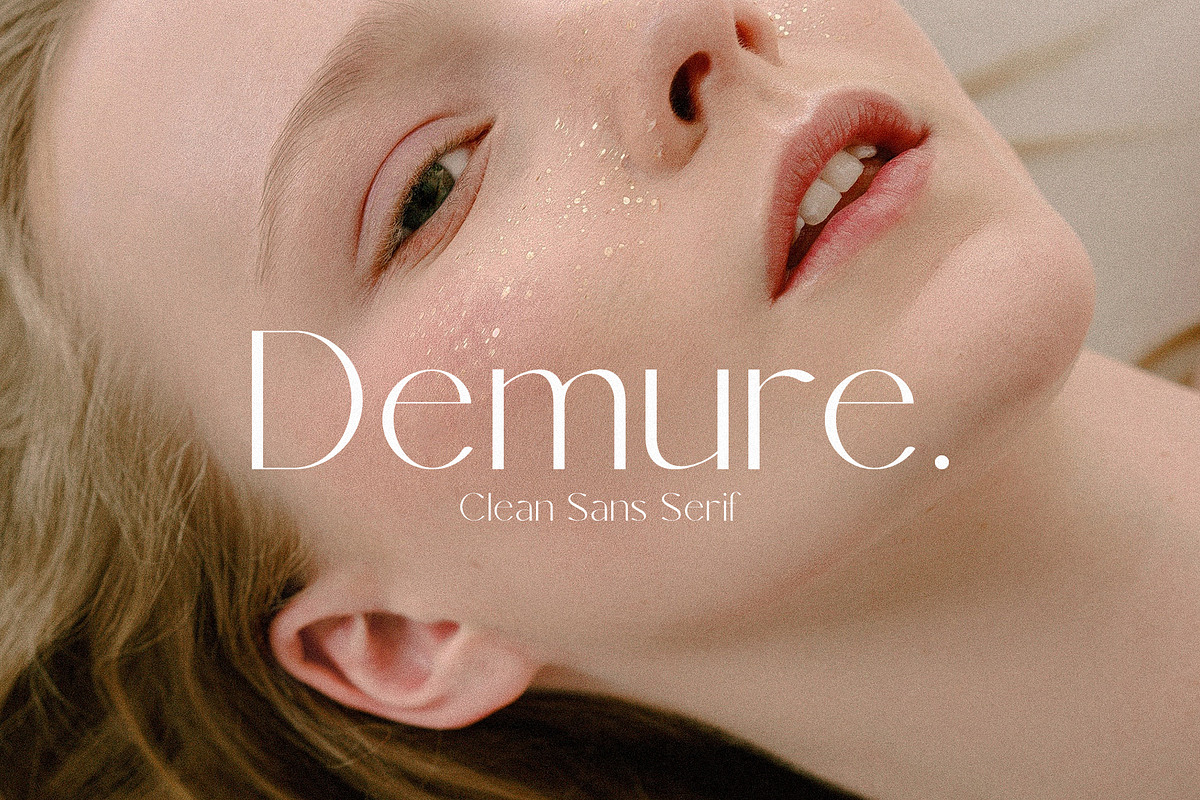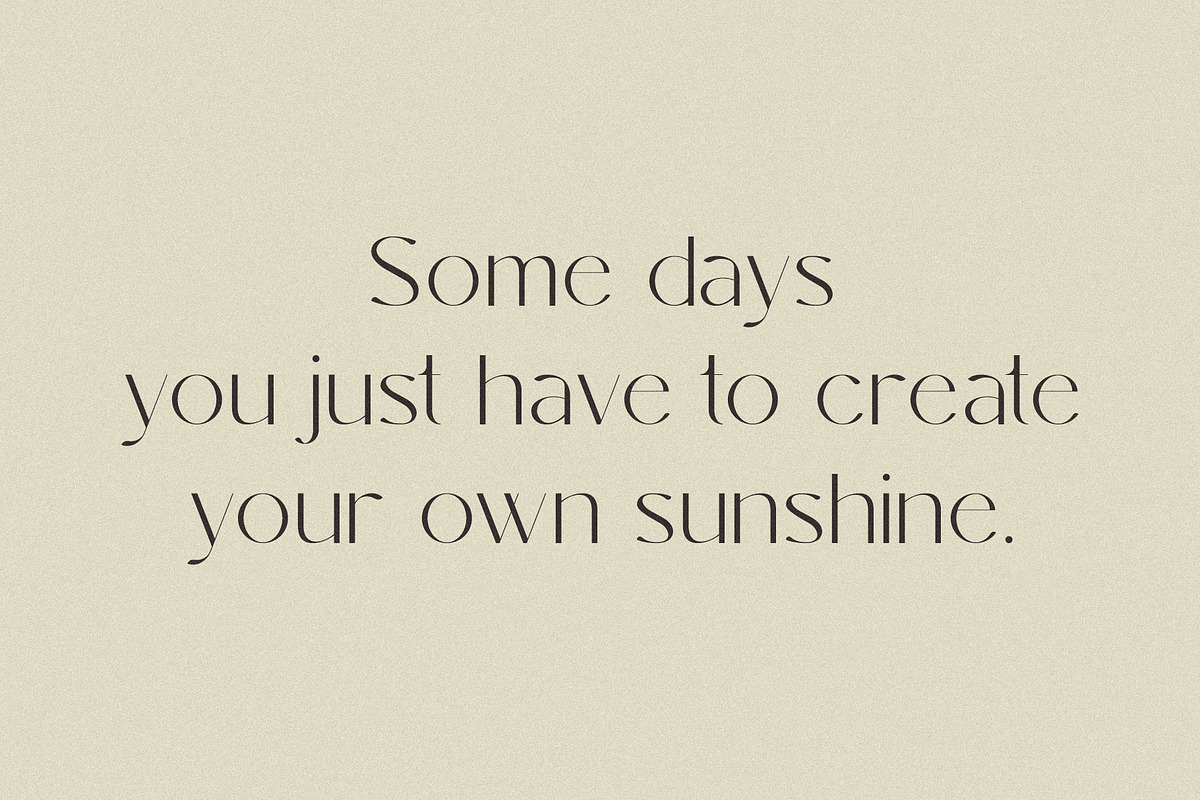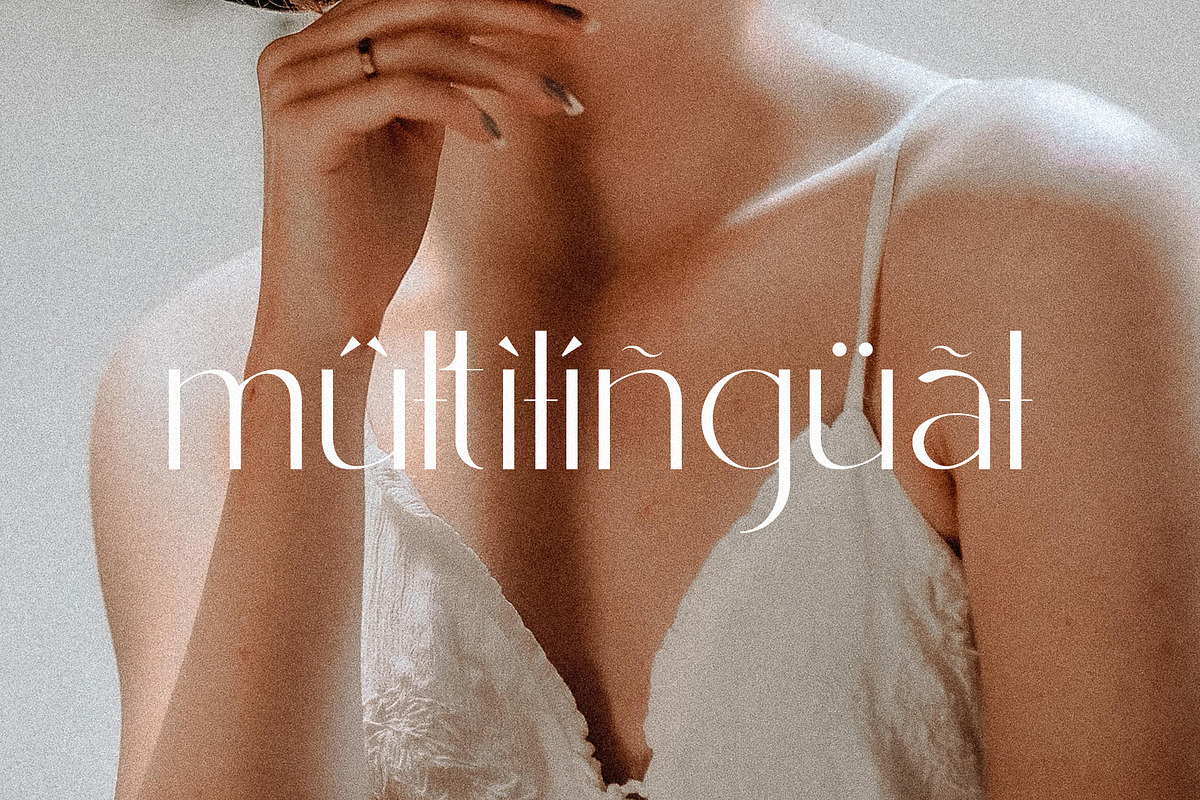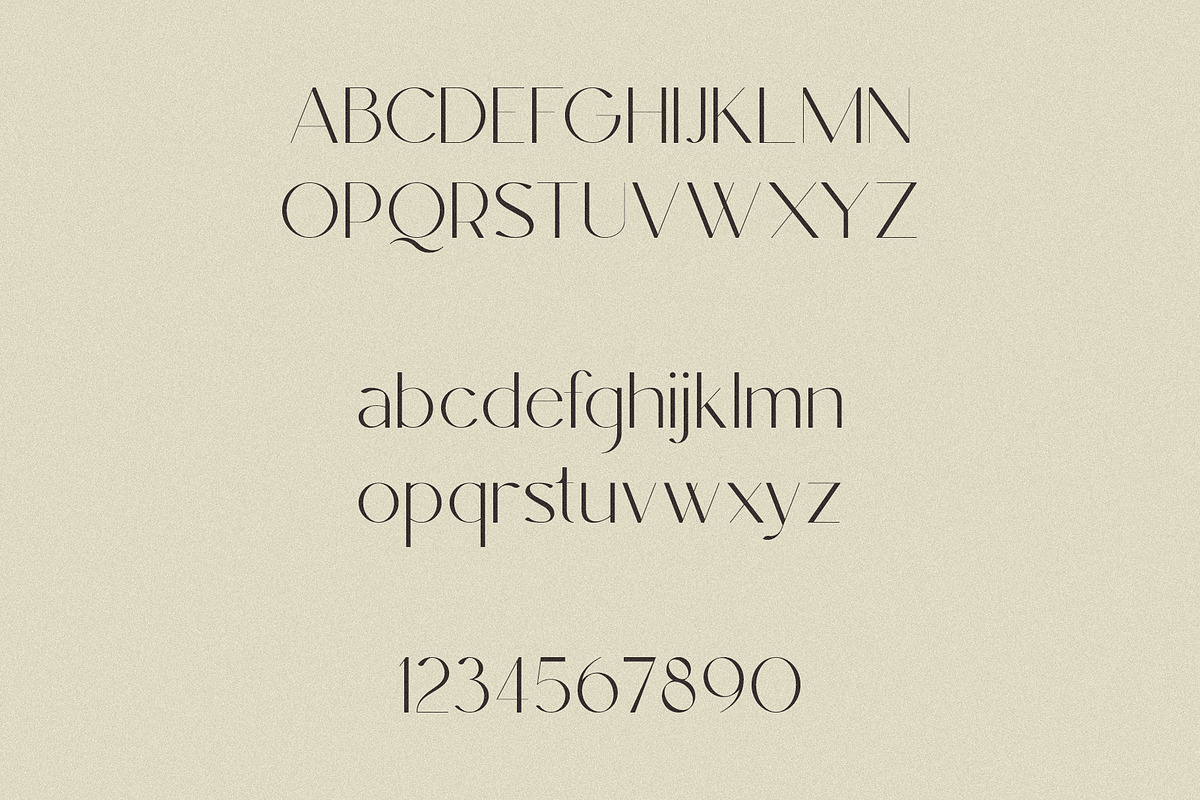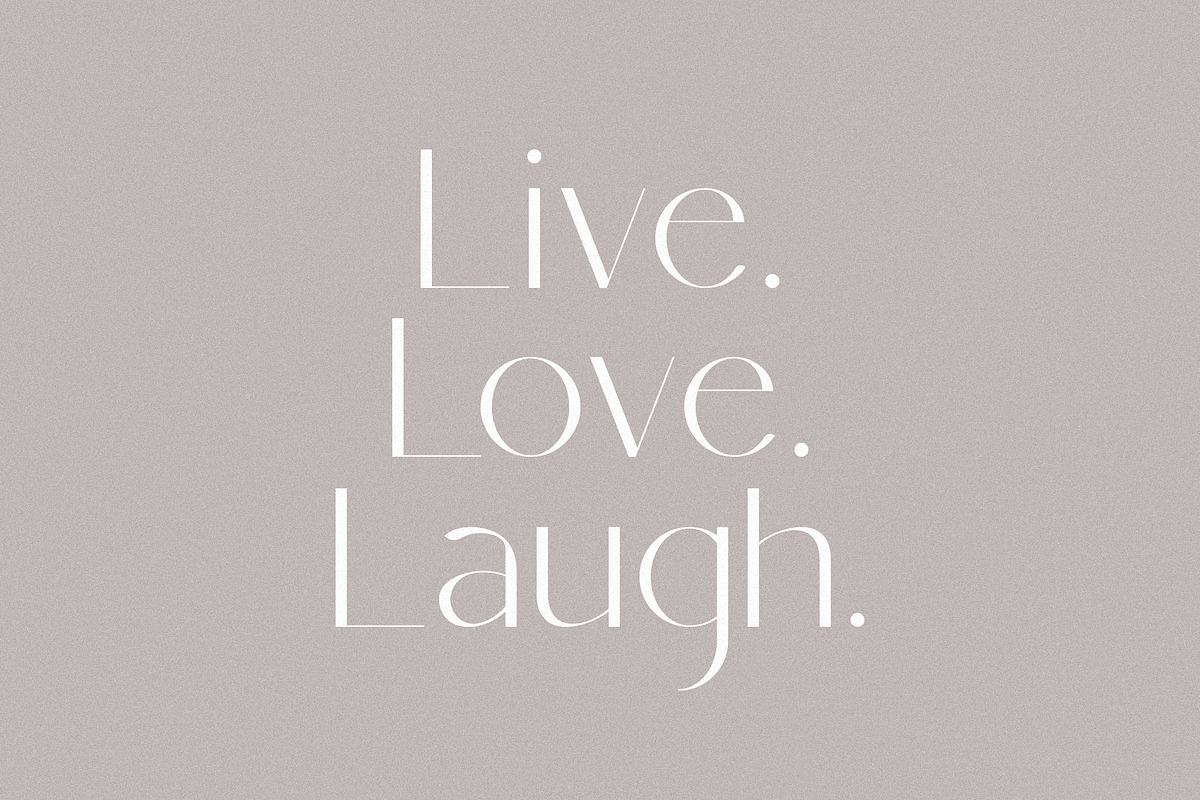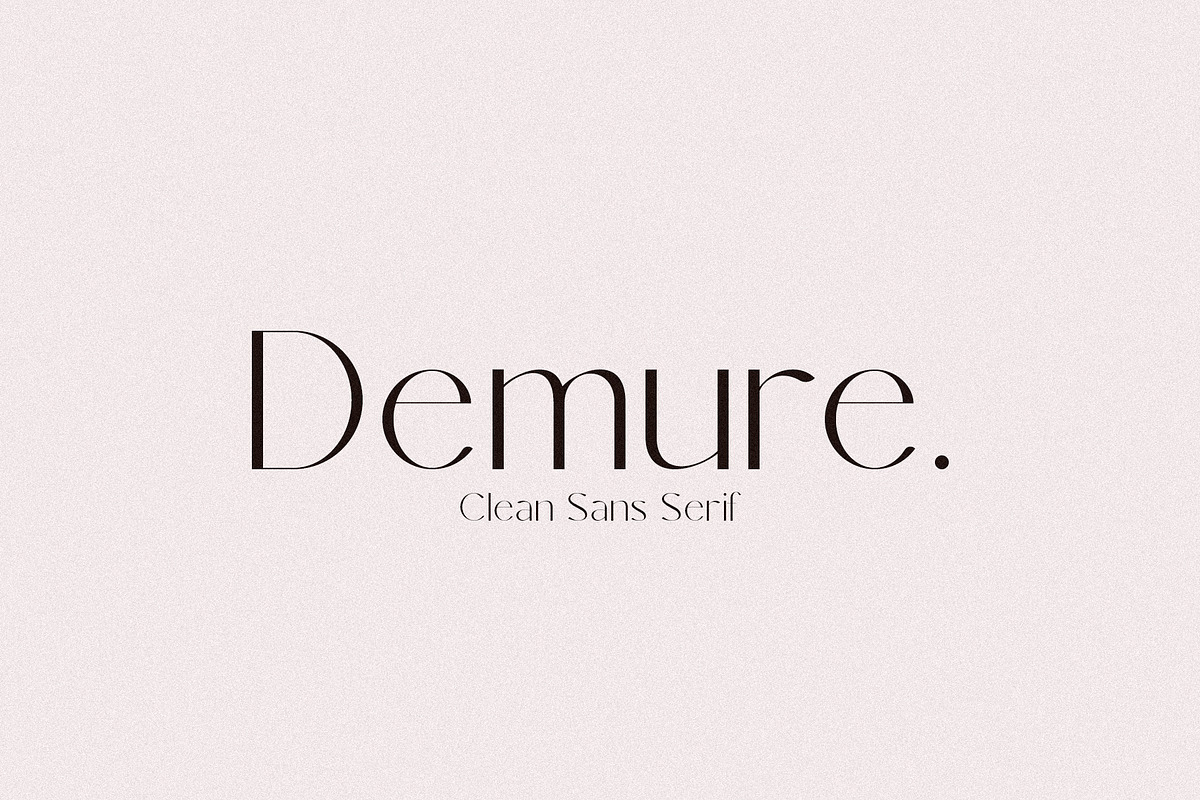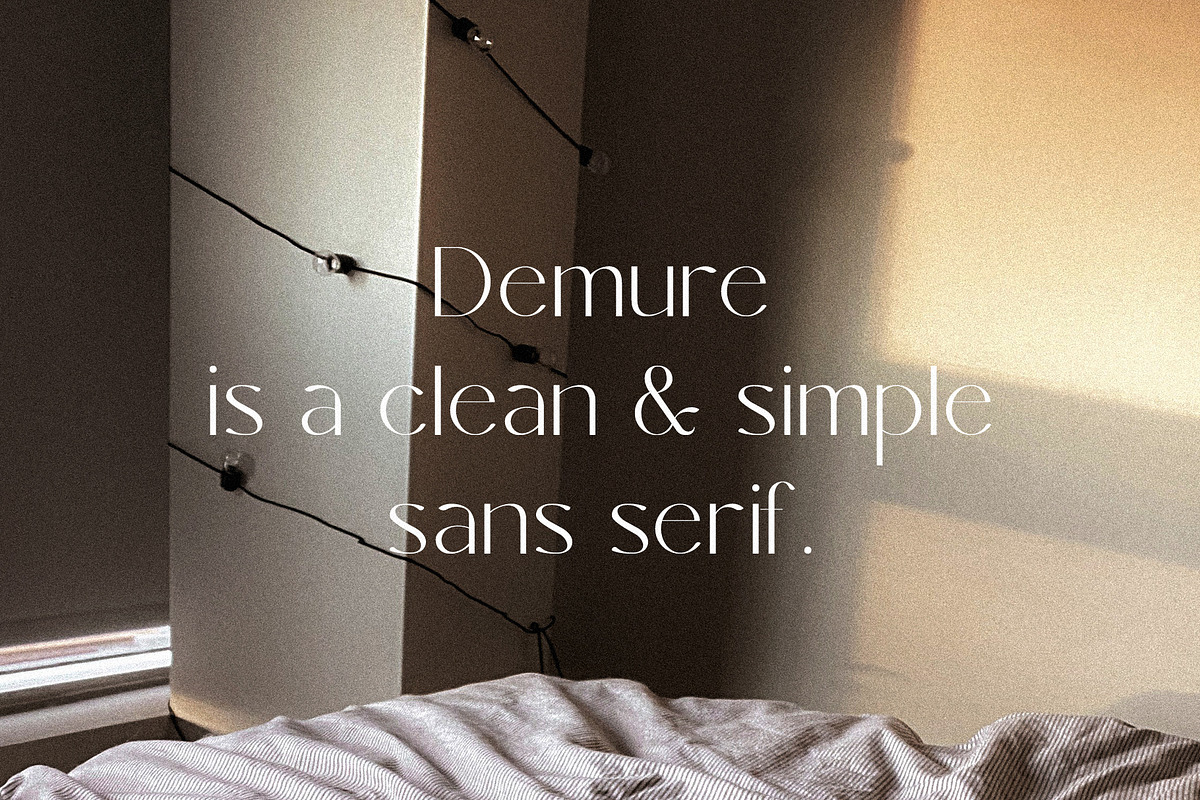
Demure - Clean Sans Serif
Demure is a clean & simple sans serif. Demure has been designed for projects which are suitable for modern & elegant design, such as magazines, logos, headers, and many more.
Demure includes:
- Letters
- Symbols & Punctuation
- Basic Ligatures